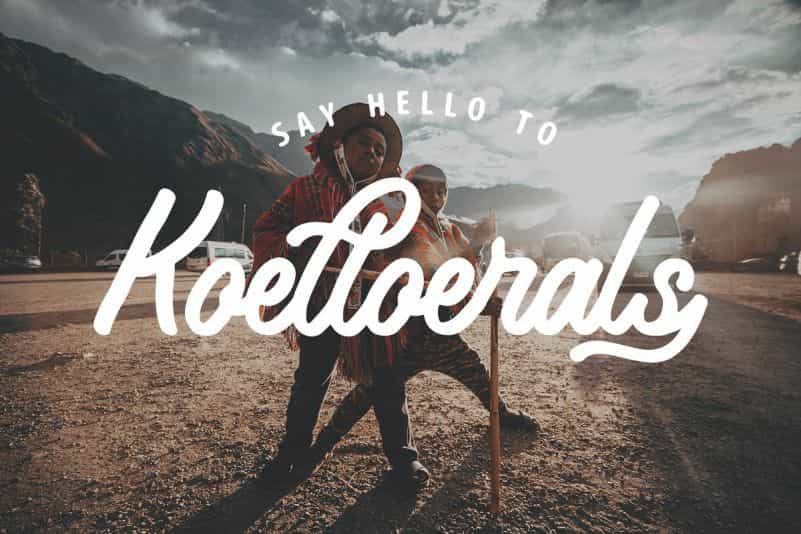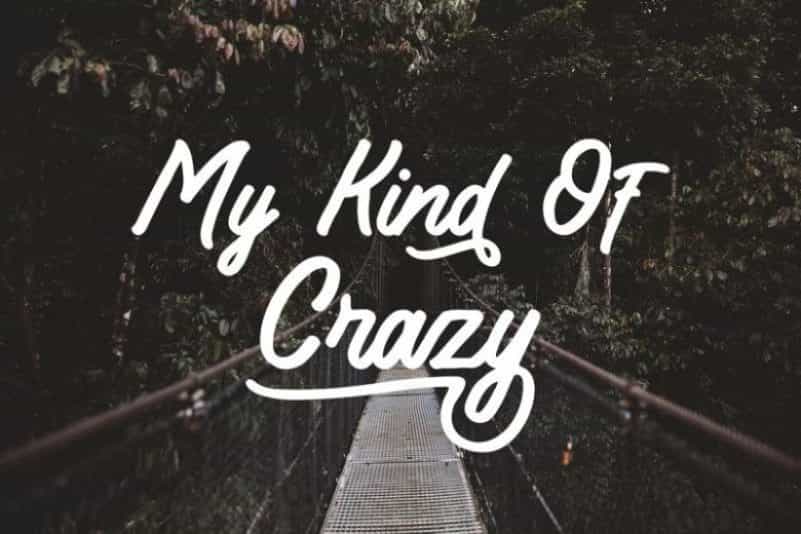
Discover Koeltoerals Script Font, part of the Commercial Handwritten Monoline collection—a versatile and unique font perfect for adding a personal touch to your projects. Download it for free and enjoy crafting designs with style, from invitations to social media posts. This font is available exclusively for personal use, giving you the freedom to create without limits. Unlock your creativity with Koeltoerals Script Font today!
Koeltoerals is a perfect font for children as it is very different but in the same time is very modern, playful and very suitable for retro fonts! It is special and created by Crump Hand and was posted on their channel. It is a Handmade Typeface Styles typeface that is designed to work well together and can be used to produce great hand lettering very fast. Perfect for logos, quotes written by hand, product labels, headers, posters, souvenirs, banners, social networks & greetings.